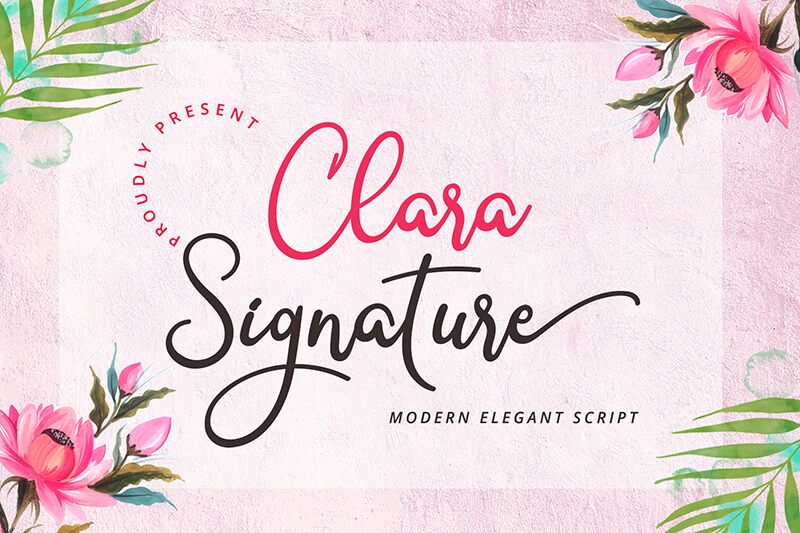
Clara Signature
Clara Signature font is a free handwritten font designed by Airotype Studio. Romantic and elegant in its fluidity, the font holds a sophisticated charm in every word it presents. The versatile modern script letterforms have harmonious presence and function with wonder across all project types.
Use Clara Signature for branding projects or when creating typography for magazines, logos posters, labels, etc. It works great on apparel, social media posts, greeting cards invitations to wedding dinners whole lots more!